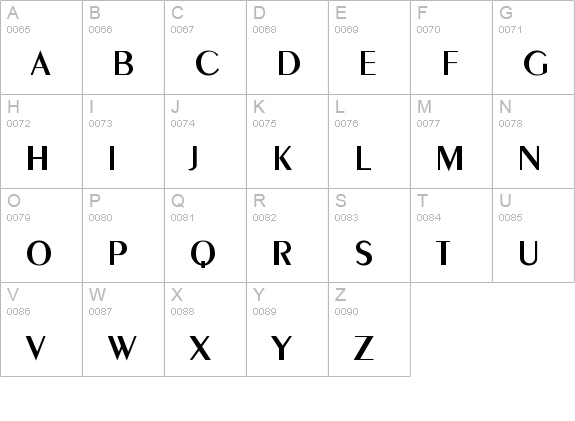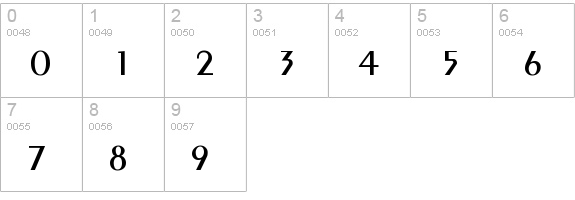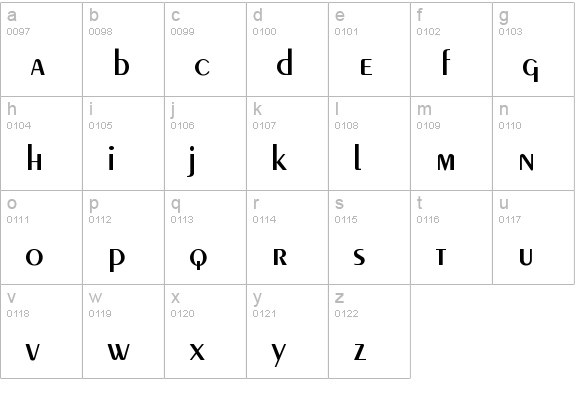
Penyae Regular is the standard, neutral variant in the Penyae typeface family \xE2\x80\x94 well suited to general body text, paragraphs, and standard typographic work.
Penyae Regular font is a stunning typeface that exudes elegance and sophistication. Its clean and crisp lines make it perfect for various design projects, from logos and branding to headlines and invitations. With its balanced letterforms and harmonious proportions, Penyae Regular will add a touch of class to any design. What makes Penyae Regular even more appealing is that it is absolutely free! You read that right – this remarkable font is freely available to download at FontsMarket.com. So, whether you're a professional designer or someone looking to add a stylish touch to your personal projects, Penyae Regular is the ideal choice. This font not only captivates with its timeless beauty but also offers versatility. Its legibility ensures that your message will be communicated with clarity and impact. The carefully crafted curves of Penyae Regular create a sense of fluidity and rhythm, making it a joy to read. Penyae Regular's extensive character set includes uppercase and lowercase letters, numbers, punctuation marks, and special characters. This allows you to unleash your creativity and experiment with various typographic compositions. With Penyae Regular, you can effortlessly elevate your designs to the next level. Whether you're designing a sleek website or crafting elegant wedding invitations, this font will undoubtedly make a lasting impression. Don't miss out on the opportunity to enhance your designs with Penyae Regular – the free font available for download at FontsMarket.com. Download it today and unlock a world of design possibilities.